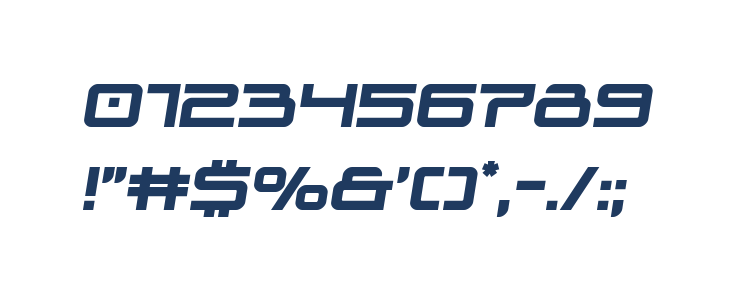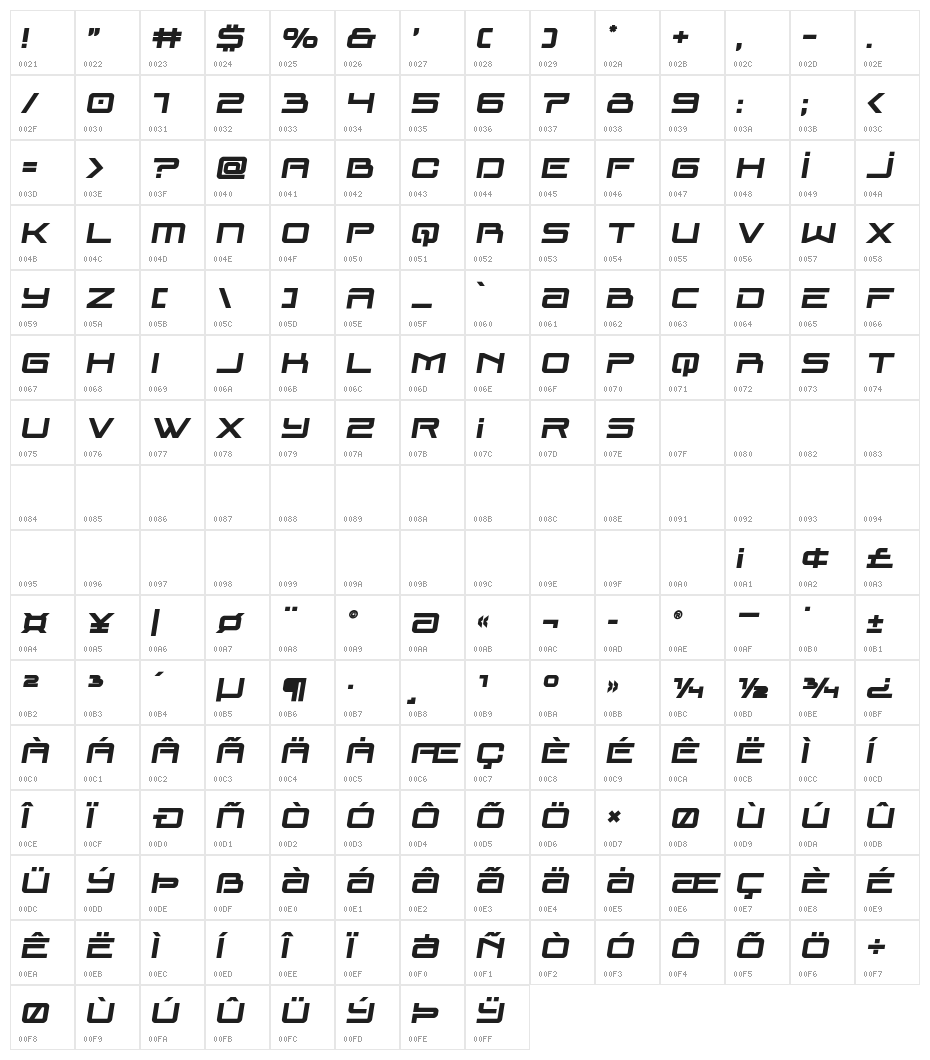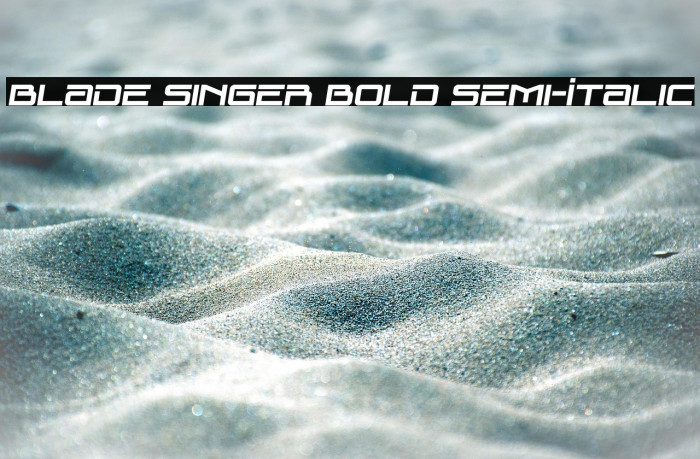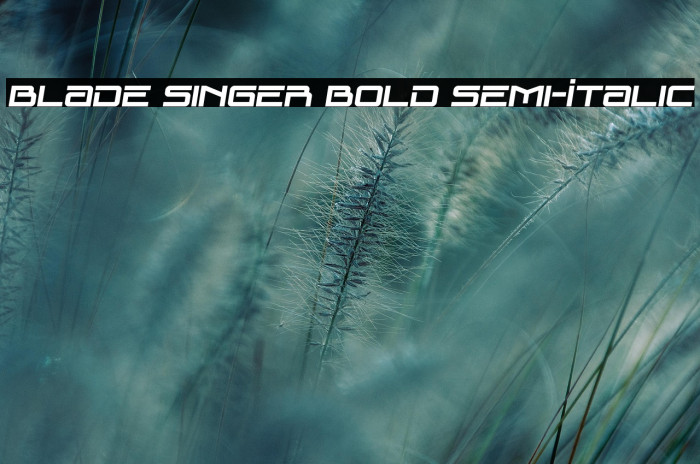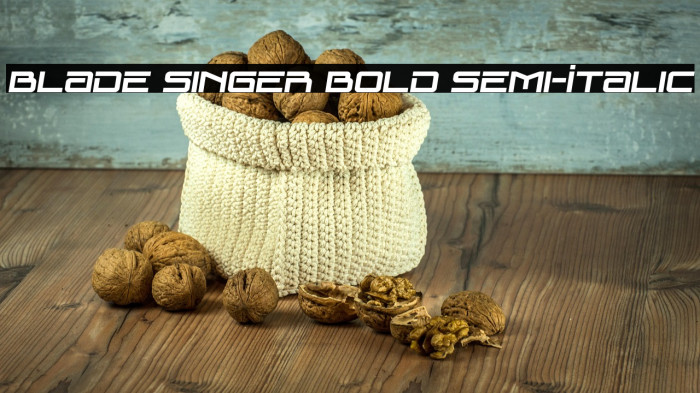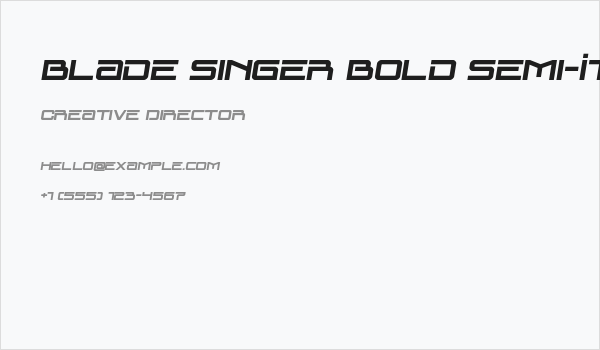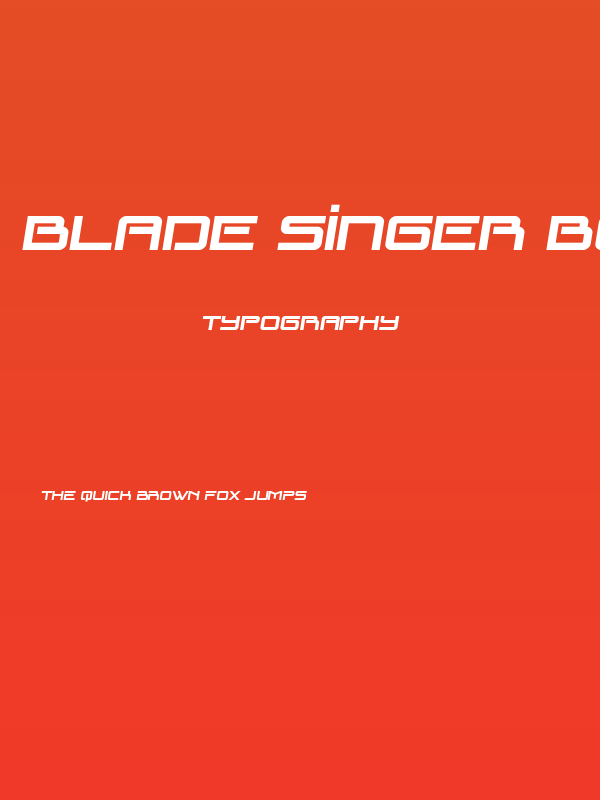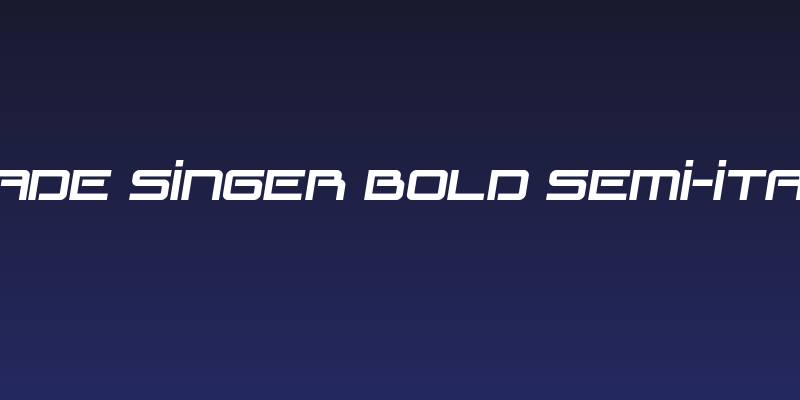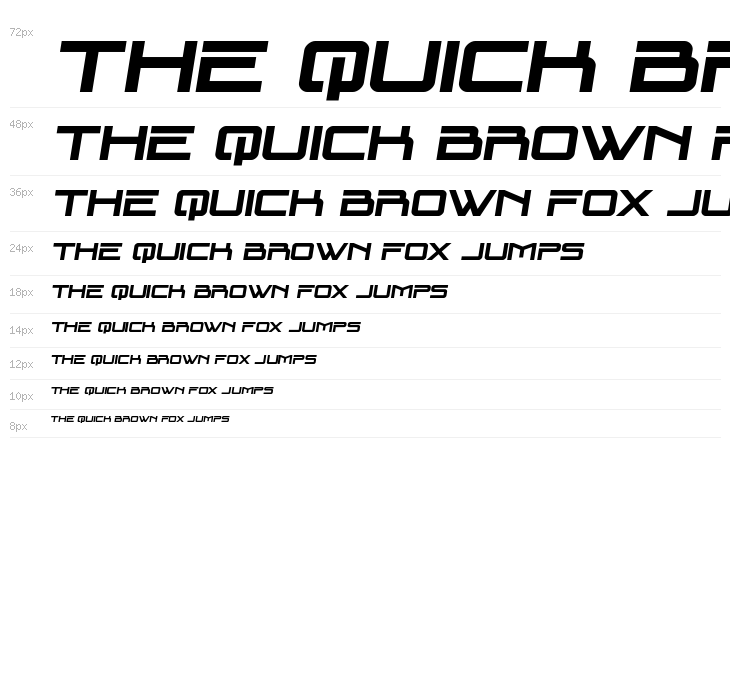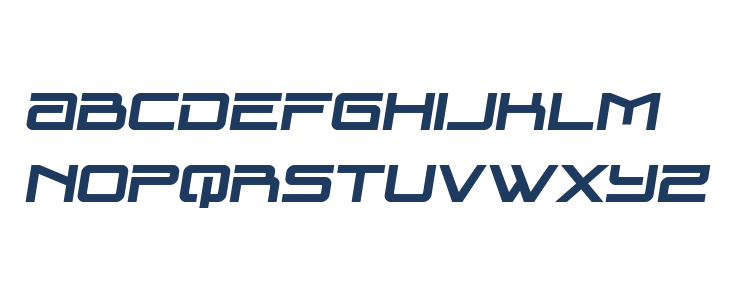
Blade Singer Bold Semi-Italic Font
Blade Singer Bold Semi-Italic Description
This font features a bold and semi-italic style with a futuristic and dynamic appearance. The characters are slightly slanted, giving a sense of motion and speed. The design incorporates sharp angles and clean lines, creating a modern and sleek look. The uppercase and lowercase letters maintain a consistent style, while the numerals and special characters complement the overall aesthetic. The font's geometric structure and uniform stroke width contribute to its contemporary feel, making it suitable for projects that require a cutting-edge and energetic vibe.
| Overall Style | Futuristic, Dynamic |
| Proposed Projects | Ideal for technology branding, sports team logos, video game titles, and sci-fi themed posters. |